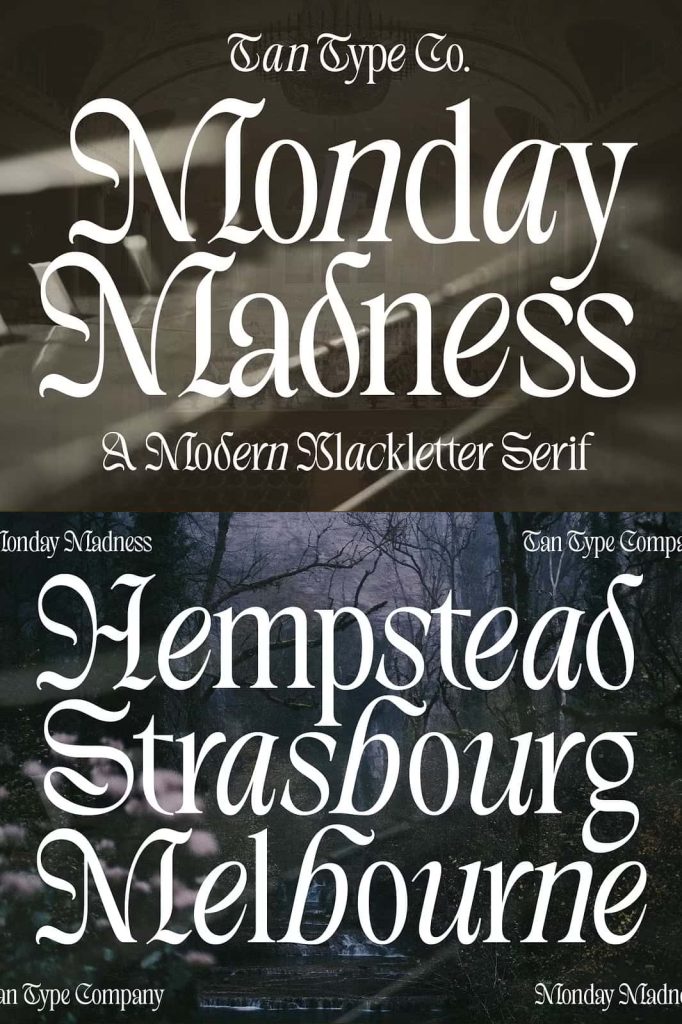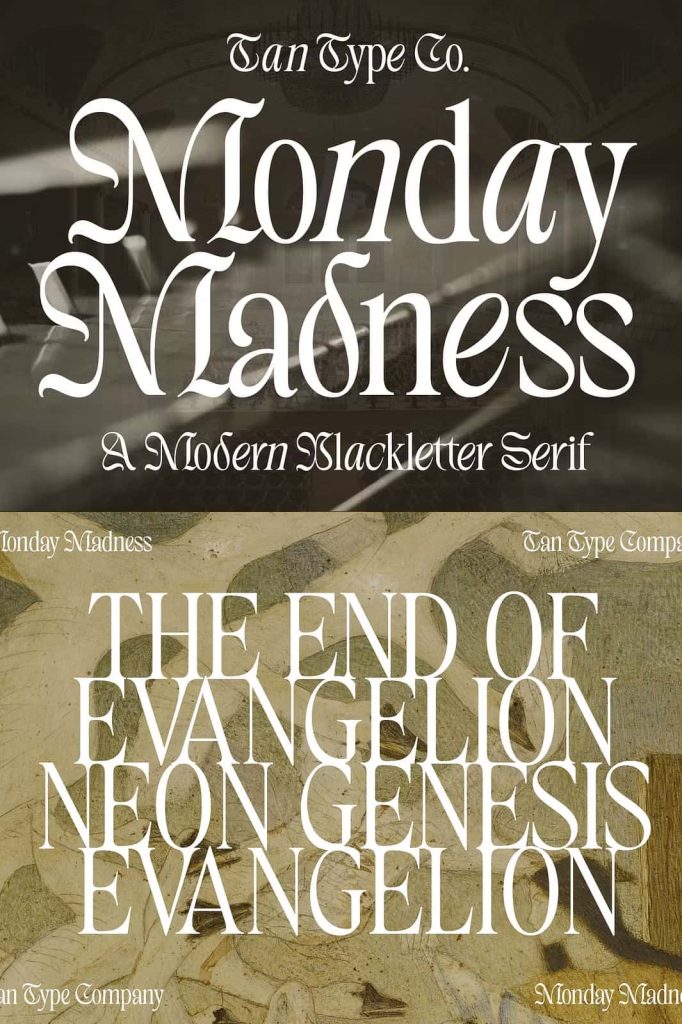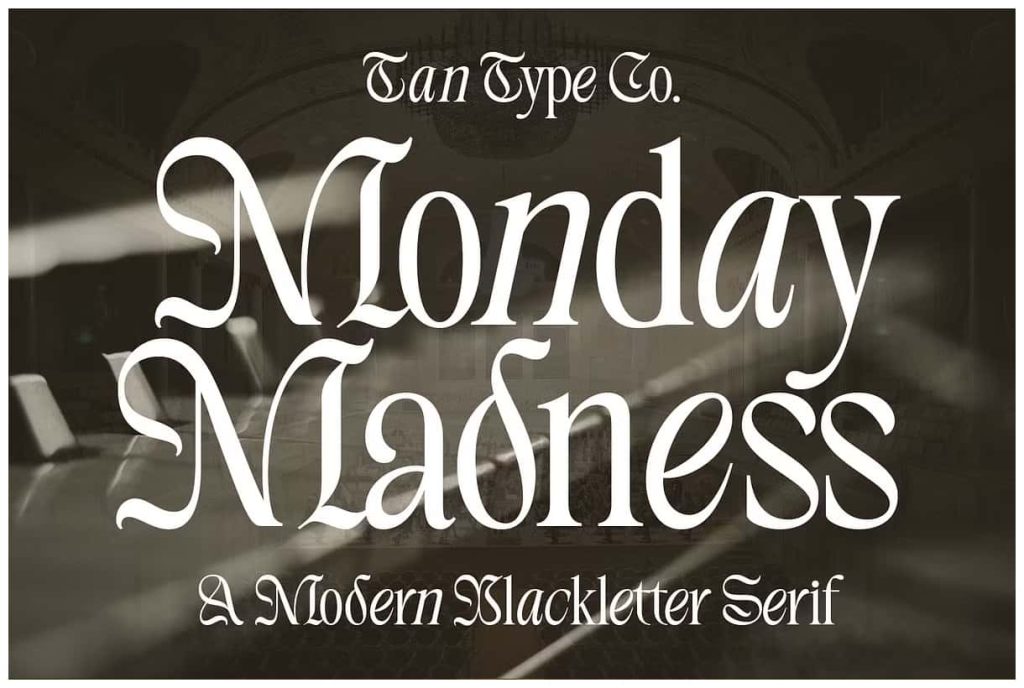
Monday Madness is a captivating modern blackletter serif font that blends the timeless elegance of traditional blackletter forms with contemporary readability.